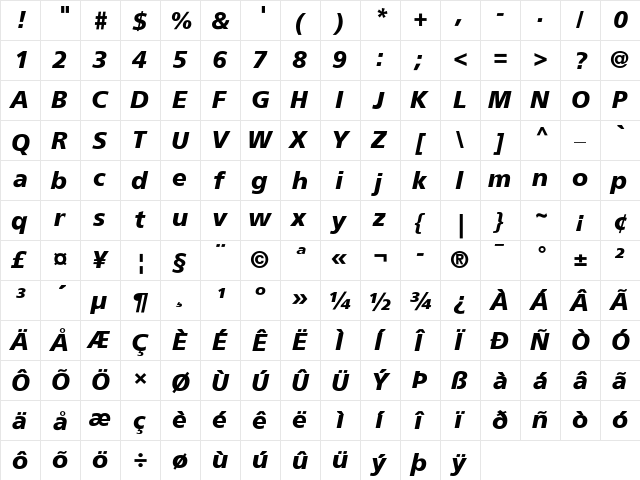
Frutiger 55 Roman Bold Italic
Design Context for Frutiger 55 Roman Typeface
Frutiger 55 Roman is a composed and adaptable typeface that performs quietly and consistently across a wide range of design contexts. Its italic angle brings a sense of urgency and motion to the letterforms. Its bold stroke weight gives it real presence on the page.
Pro Tip: Use Frutiger 55 Roman for emphasis, pull quotes, and subheadings where its slanted energy can add rhythm to the layout.